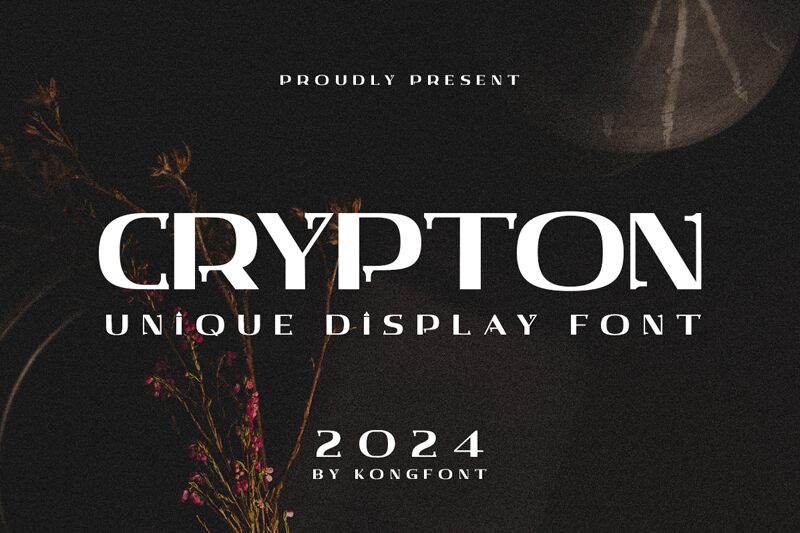
Crypton font by Kong Font is a free fancy typeface with an angular, modern, and minimalist style. Its monospaced and geometric appearance gives it a unique character that is both clean and strong, perfect for designs requiring a bold and contemporary touch. Drawing inspiration from tech-driven themes, Crypton provides a fresh and futuristic vibe that can easily capture attention.
Ideal for branding in technology or fashion sectors, Crypton also suits digital and print media applications. Use it in website headers, product packaging, advertisements, posters, social media graphics, or even editorial design. Its versatility makes it an excellent choice for designers looking to add something new to their projects.